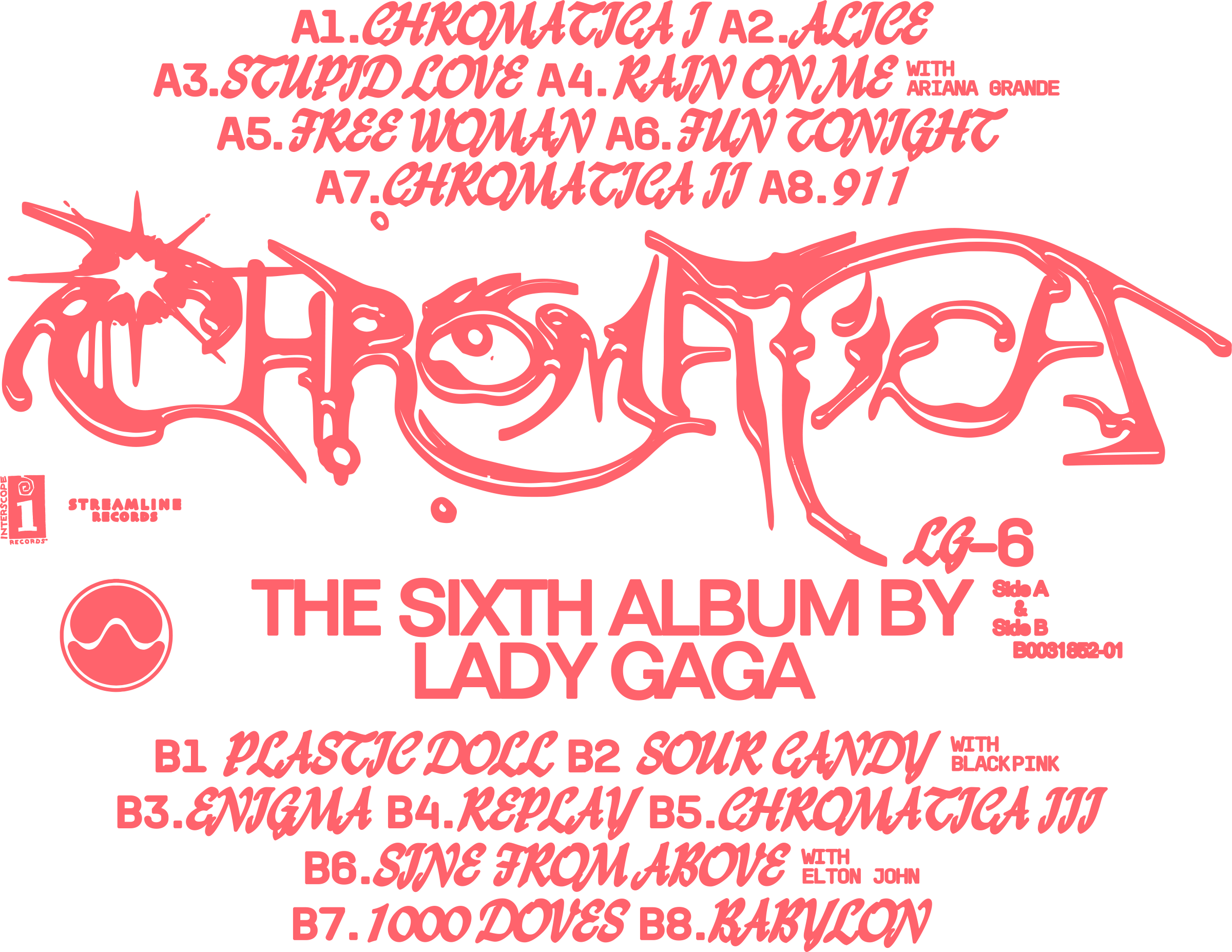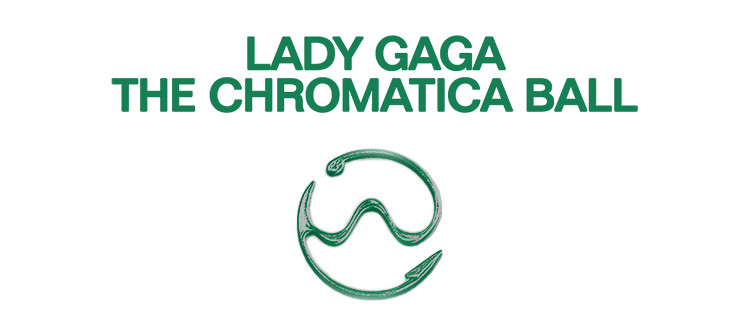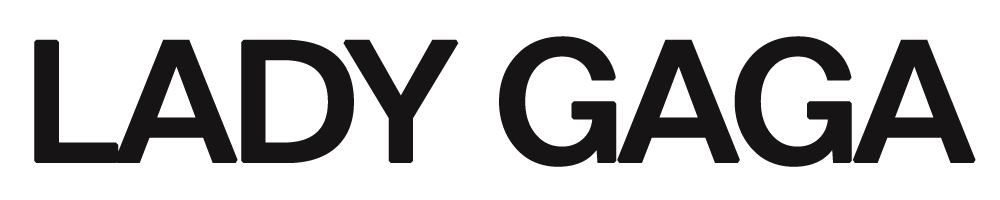
'Chromatica' visual guide: Fonts, colors, PNGs
finished chromatica's cover
you got some fonts wrong there :ally:
latest?cb=20200303193651 Folio Medium
latest?cb=20200506192218 Lydian Cursive
EW5EAb6UMAErR-X.jpg Memesique
I thought You're My Favorite was in Impact...?
well it's memesique not impact :huntyga: the letters are different
I'm a graphic designer but how dare I get two very similar fonts confused!
What about the color palette and etc for ROM cover :ally:
Regarding ROM I think the title font is very similar to Guido Grosso but the m and n are slightly different. Maybe it's custom?
What about the color palette and etc for ROM cover :ally:
do we have anything for Rain On Me?